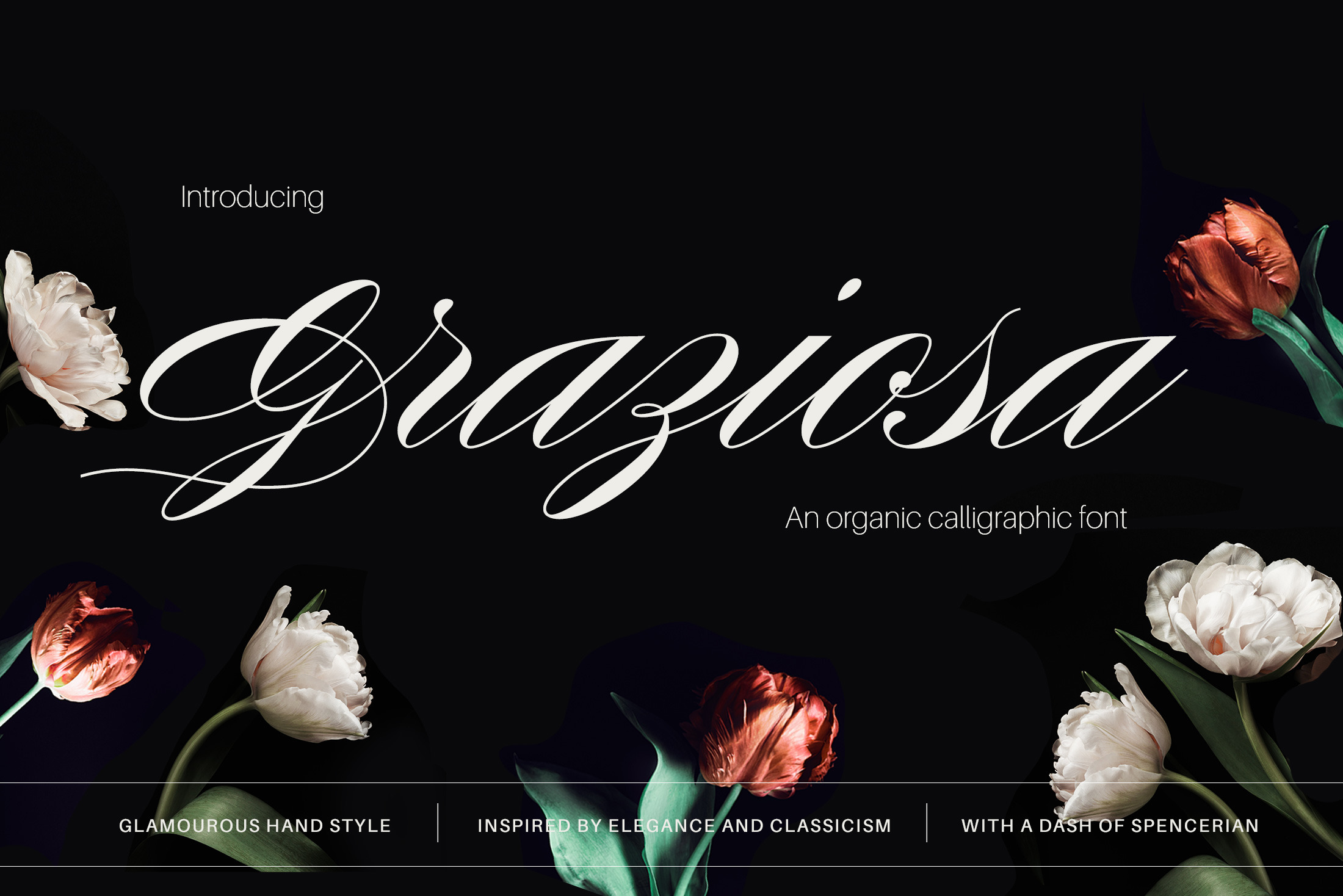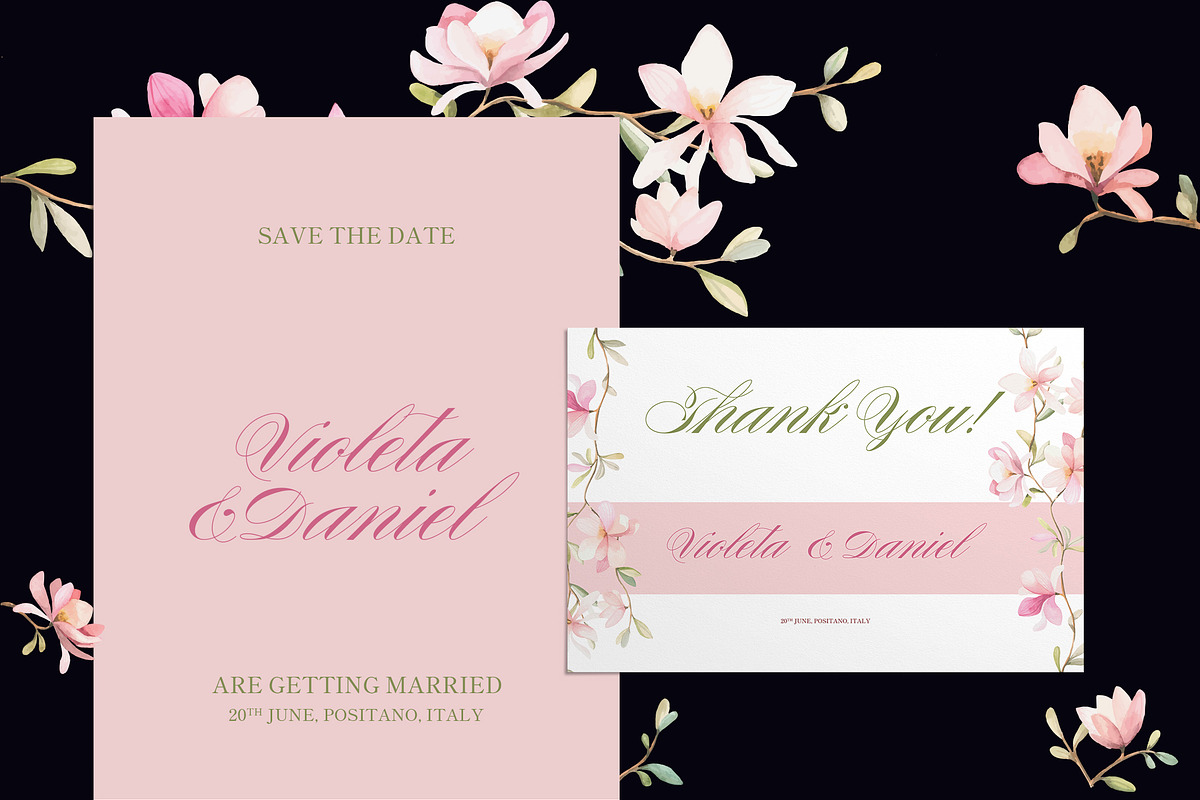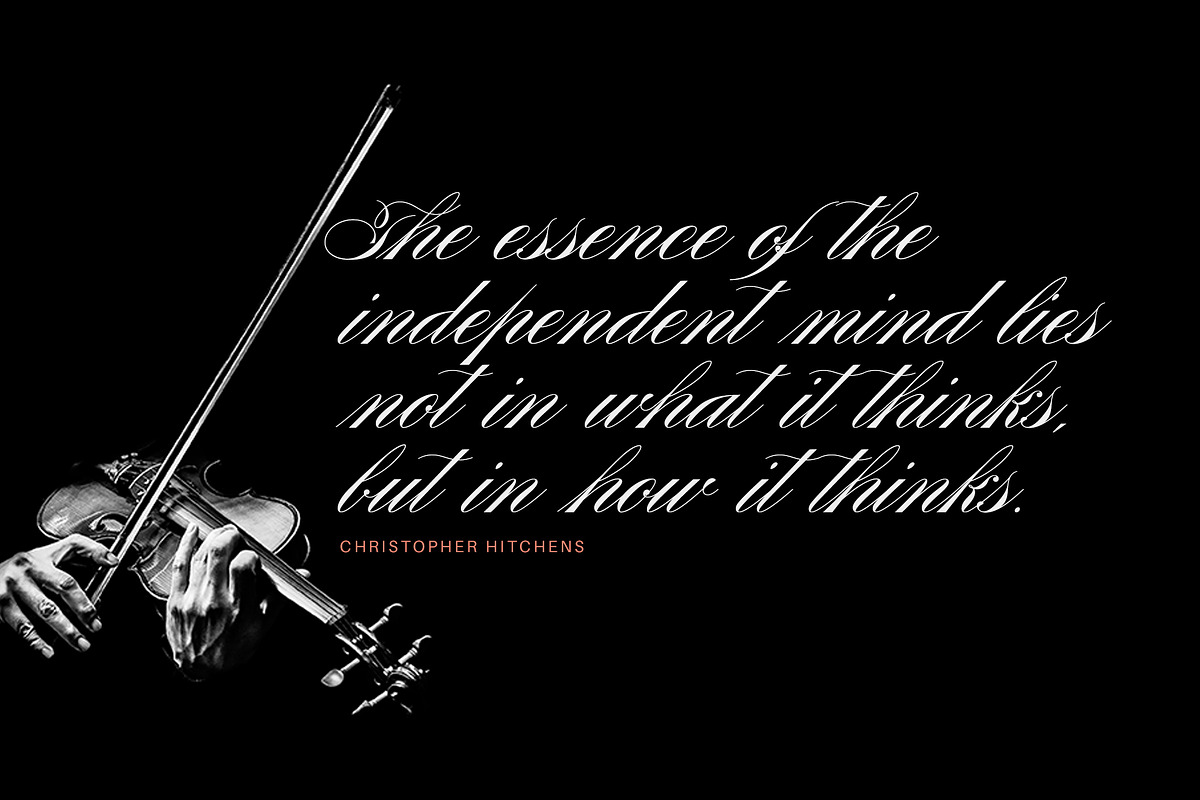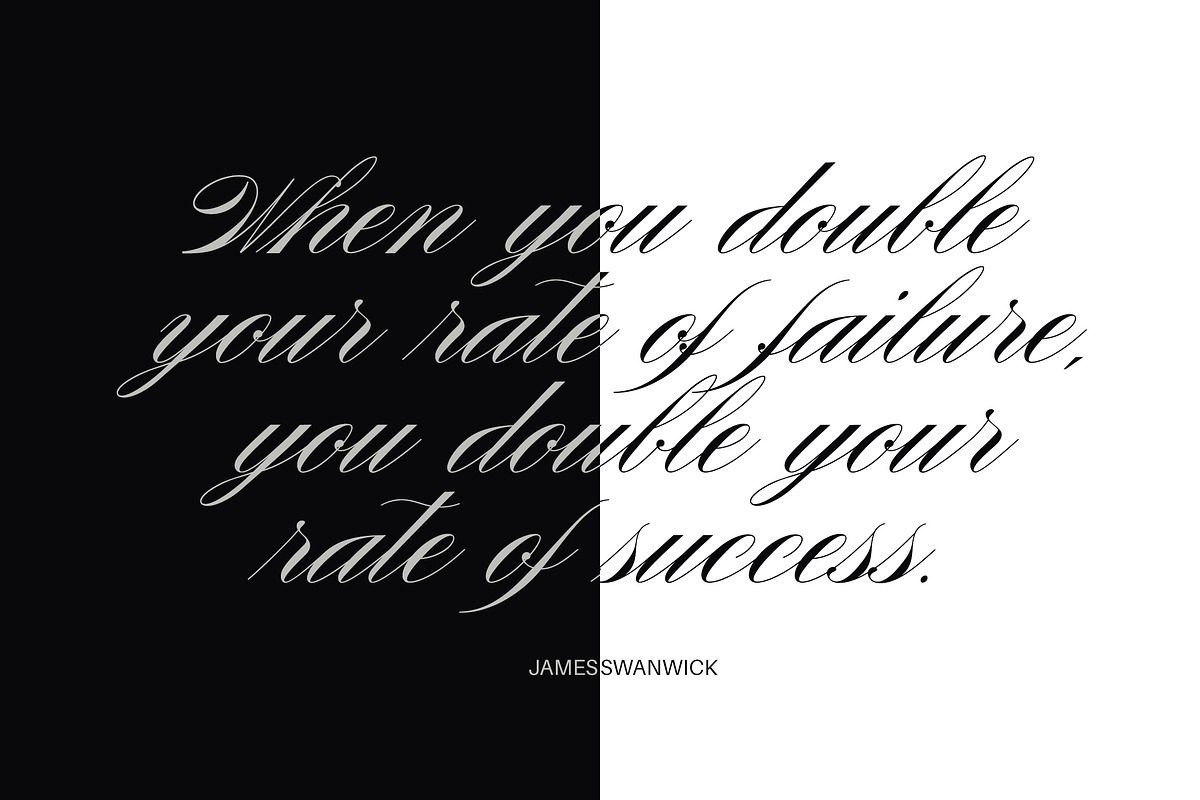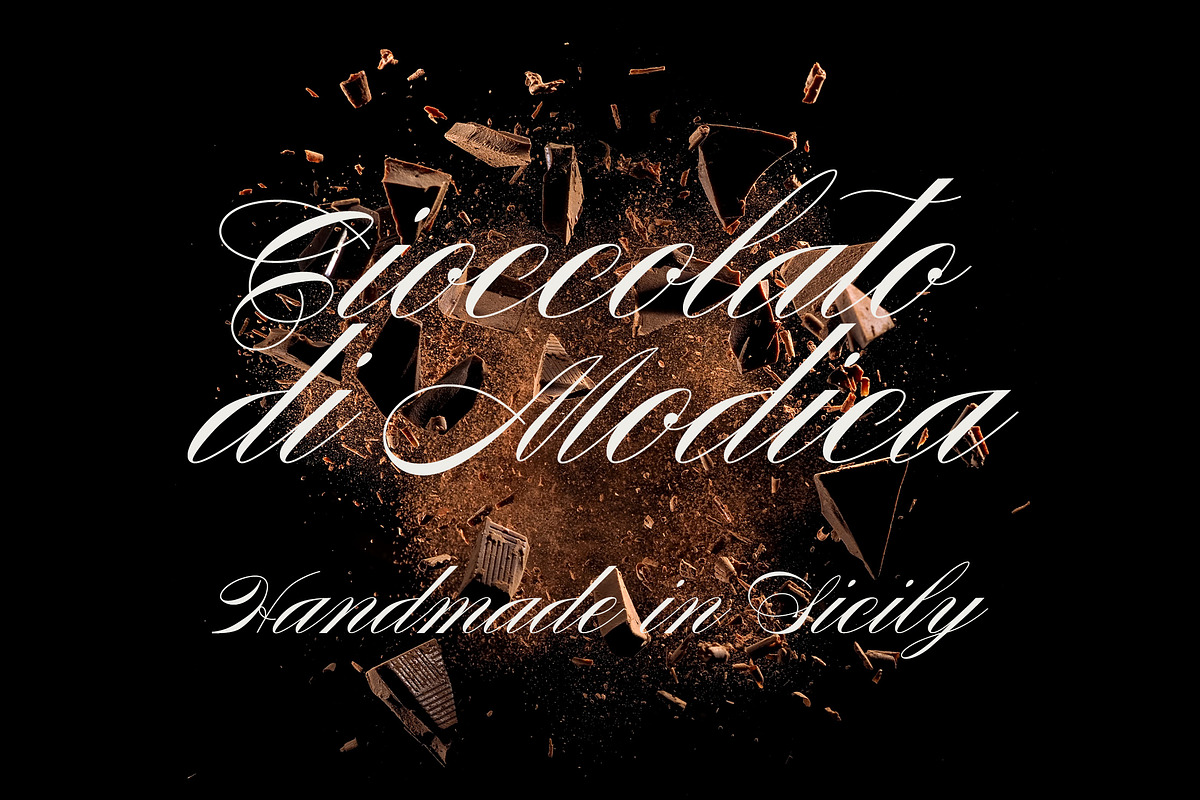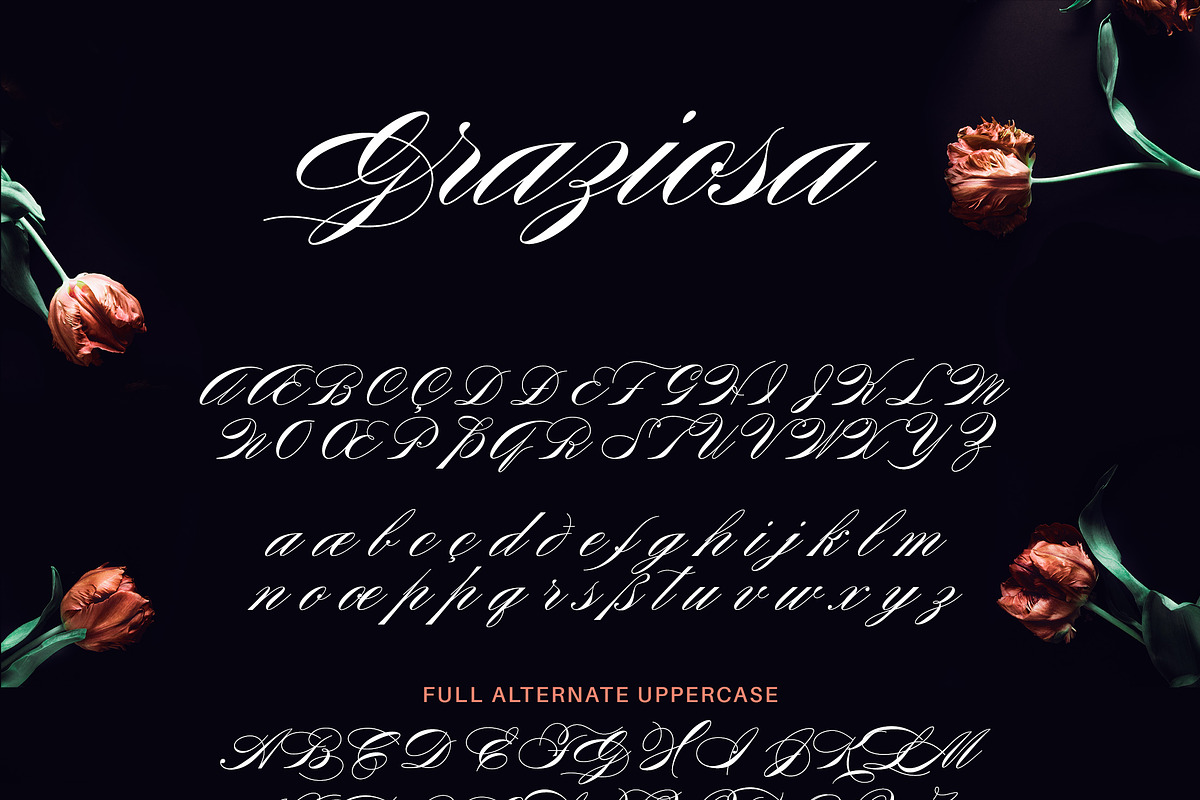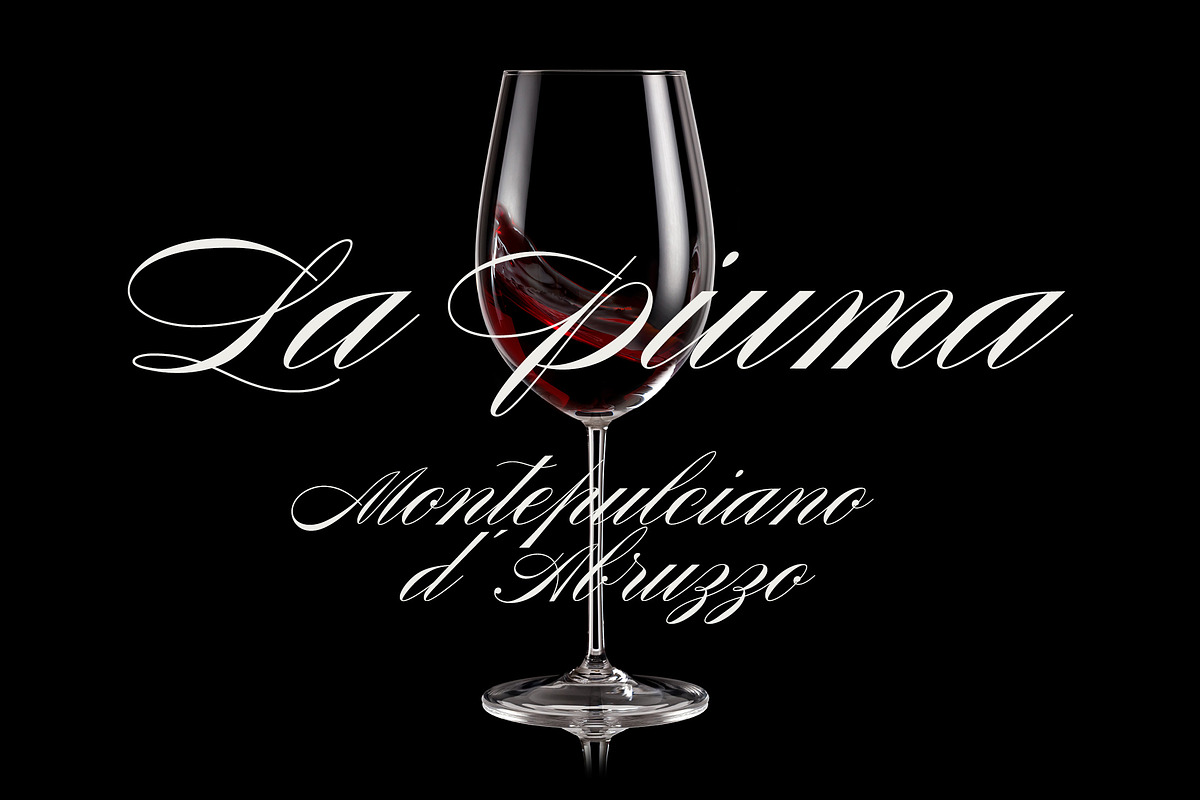
Graziosa Script Font
Introducing the new Graziosa font, a very organic calligraphic font inspired by classicism and with a dash of Madarasz style. Perfectly suited for formal projects keeping its organic hand style appearance at the same time. For an even more organic look, this font has a full uppercase alternate set - to give the font a handwritten vibe as much as possible. Perfect for very special occasions - product labels, wedding invitations, business receptions, table numbers, greeting and thank you cards and much more.
Supports most Latin based languages.
Full set of uppercase stylistic alternates
10 ligatures
10 initial for lowercase forms
numerals and punctuation